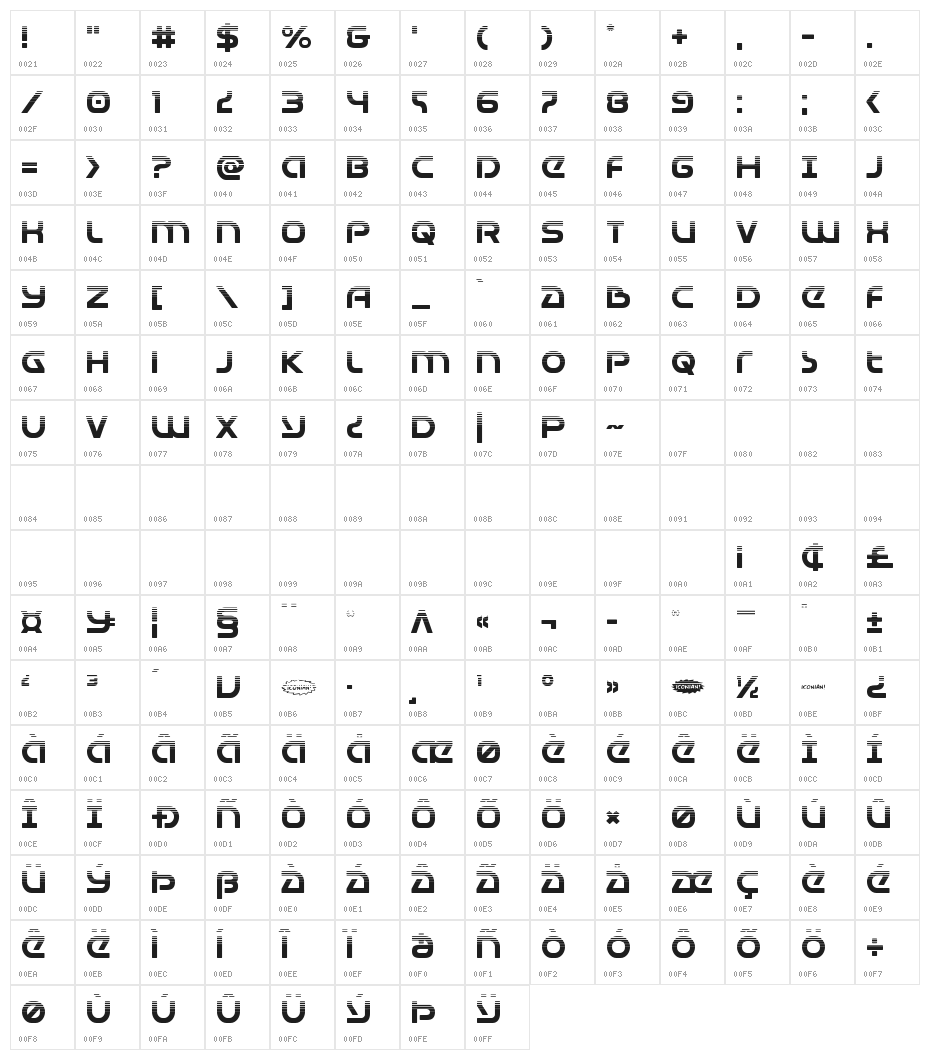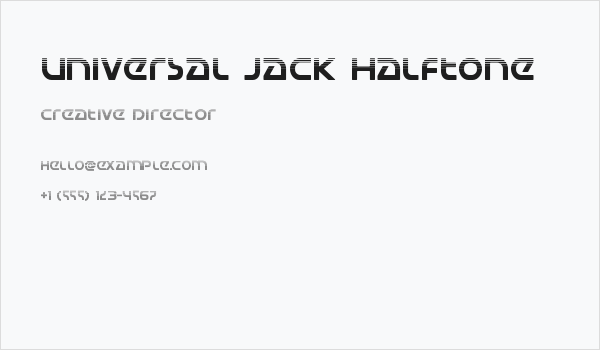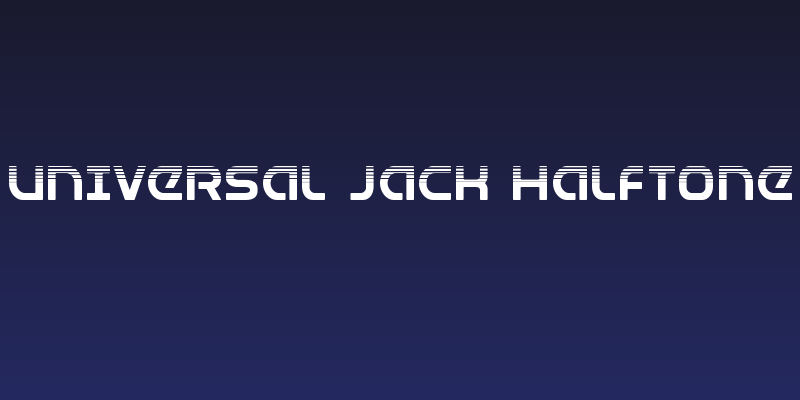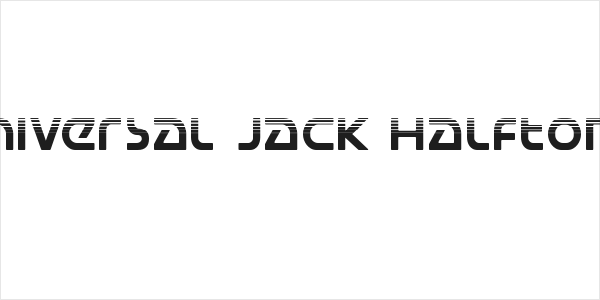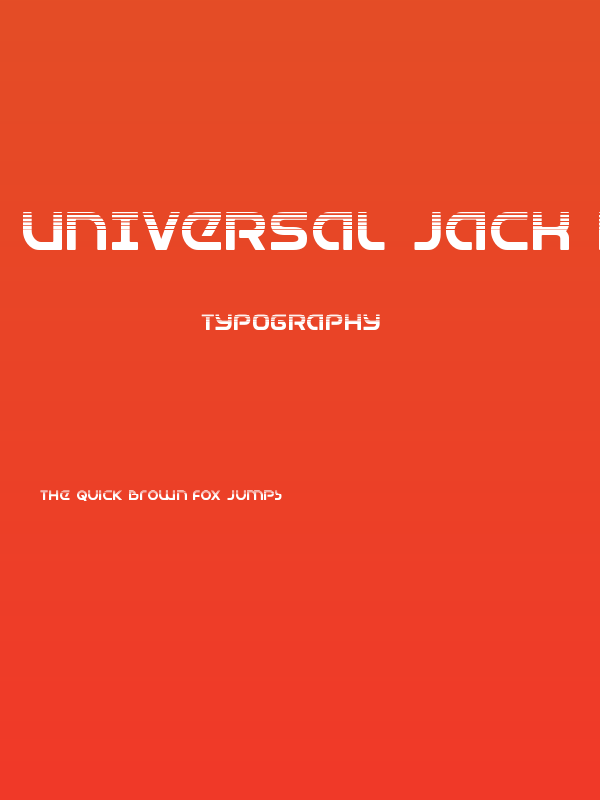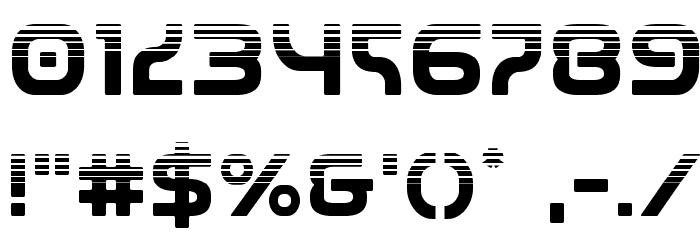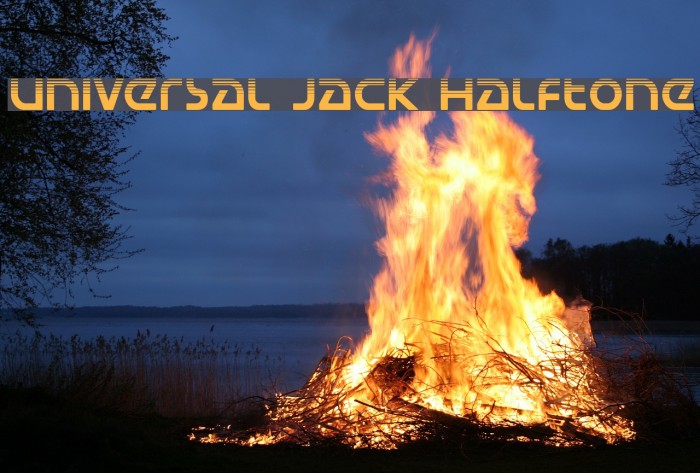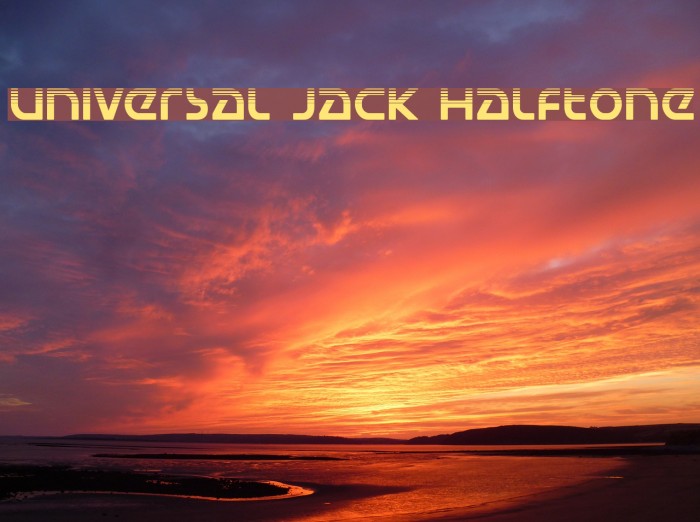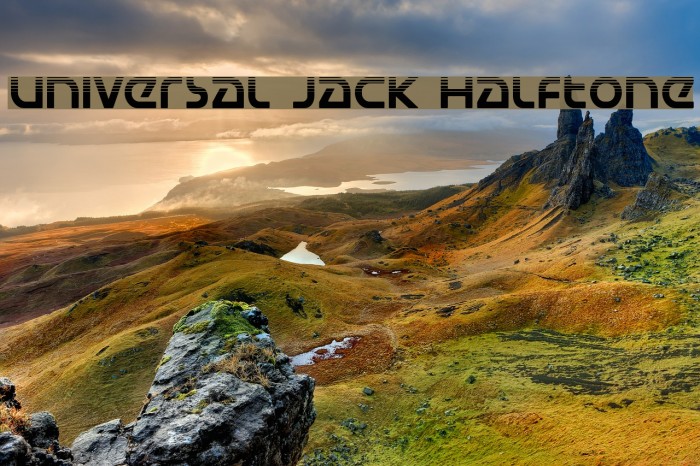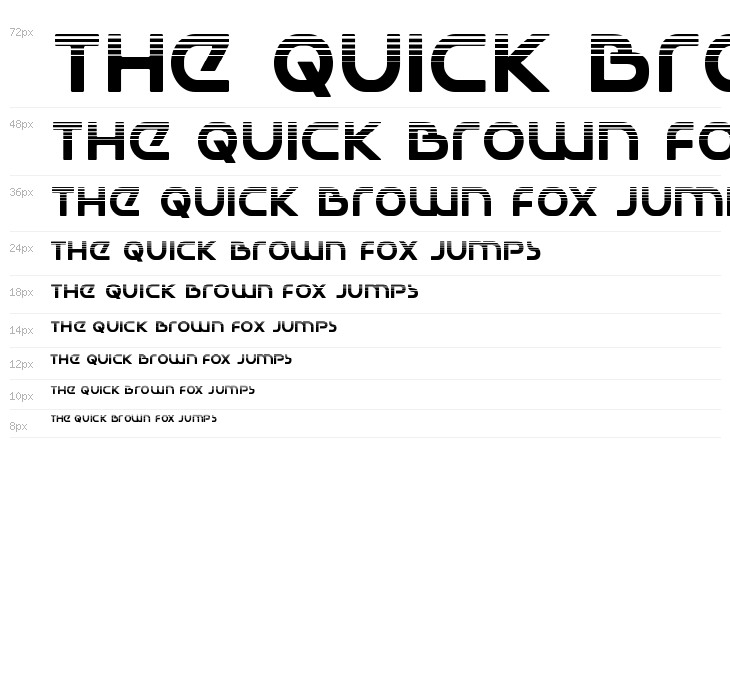
Universal Jack Halftone Font
Universal Jack Halftone Description
This font features a bold, futuristic design with a halftone effect that creates a sense of movement and depth. The characters are constructed with a series of horizontal lines that break up the solid forms, giving it a unique, digital appearance. The uppercase and lowercase letters maintain a consistent style, with rounded edges and a geometric structure. The numbers and special characters follow the same design principles, ensuring uniformity across the typeface. This font is ideal for projects that require a modern and dynamic look, such as technology branding, sci-fi themes, or digital media.
| Proposed Projects | Ideal for technology branding, sci-fi themes, digital media, and modern advertising. |